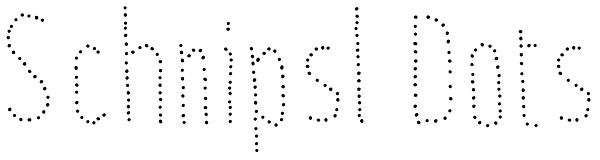
Schnipsl
Schnipsl is a playful font based on handicraft letterforms. It comes with a bunch of features to give it that extra organic look. Those features include alternates for the letters A-Z and a-z, ligatures, and filled letterforms. All the features are...
Schnipsl
Schnipsl Outline
Schnipsl Dots
Schnipsl Dotted